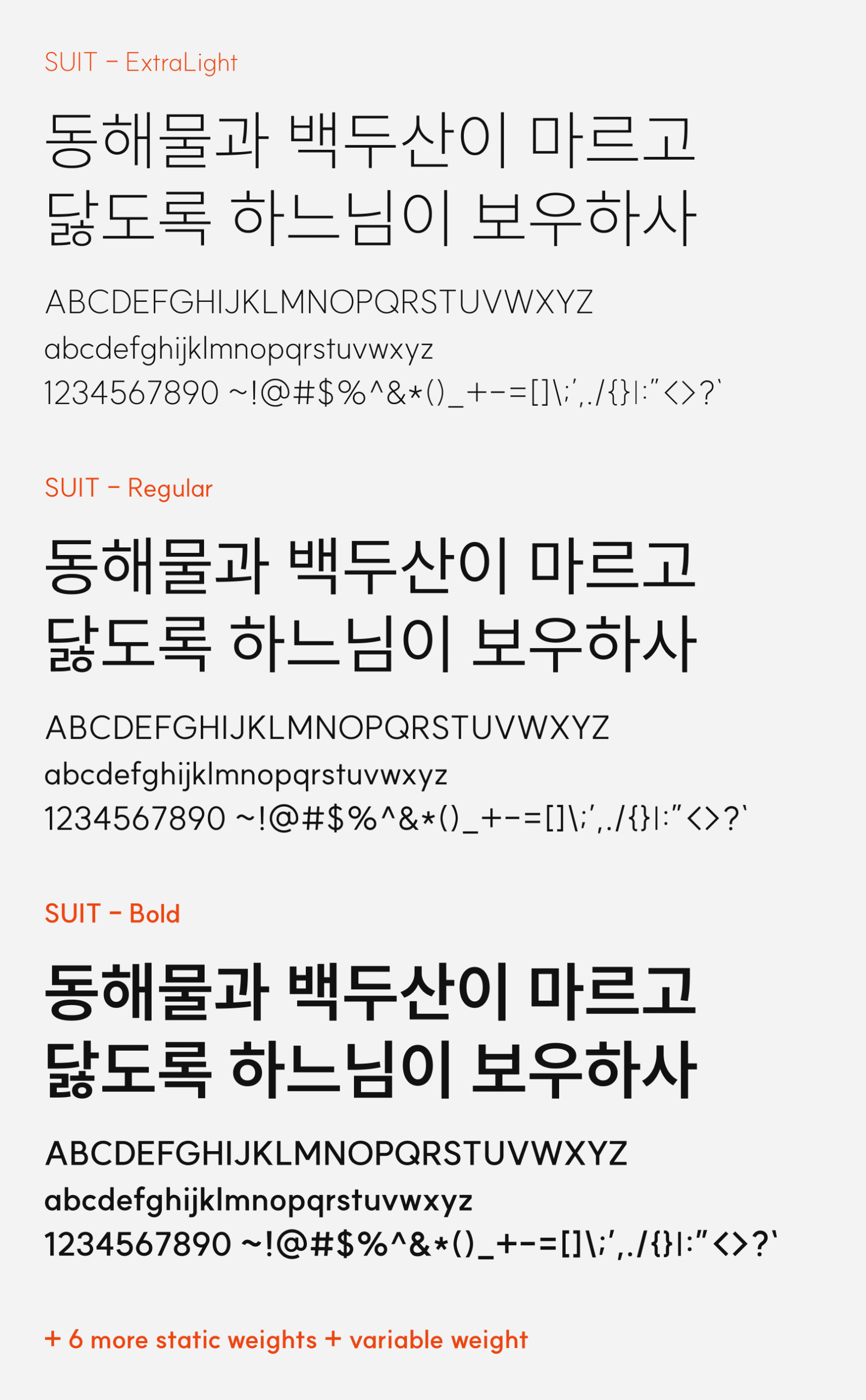
SUIT
SUIT is a UI-first Hangul font that builds on Source Han Sans as its Korean base but reworks everything else from the ground up. The Latin characters and numerals are redrawn in a Geometric style that actually matches the structural logic of Korean letterforms: clean, even, no unnecessary calligraphic holdovers. Then the characters are tweaked for better optical balance, and reduces the letter spacing by 4.8%. The reduction of letter spacing makes a lot of sense as most designers will reduce the letter spacing of popular open-source fonts like Inter etc in design tools anyway.
Developed by Sun Typeface, SUIT ships in a whopping 9 static weights with full Variable format support. With the intention for web use, SUIT was optimized from the start: the character set covers the standard 2,350 Hangul syllables plus 318 additional glyphs for loanwords and neologisms, keeping the woff2 file under 200kb. You can download this font for free and be used on commercial projects, as this font was released under SIL Open Font License.